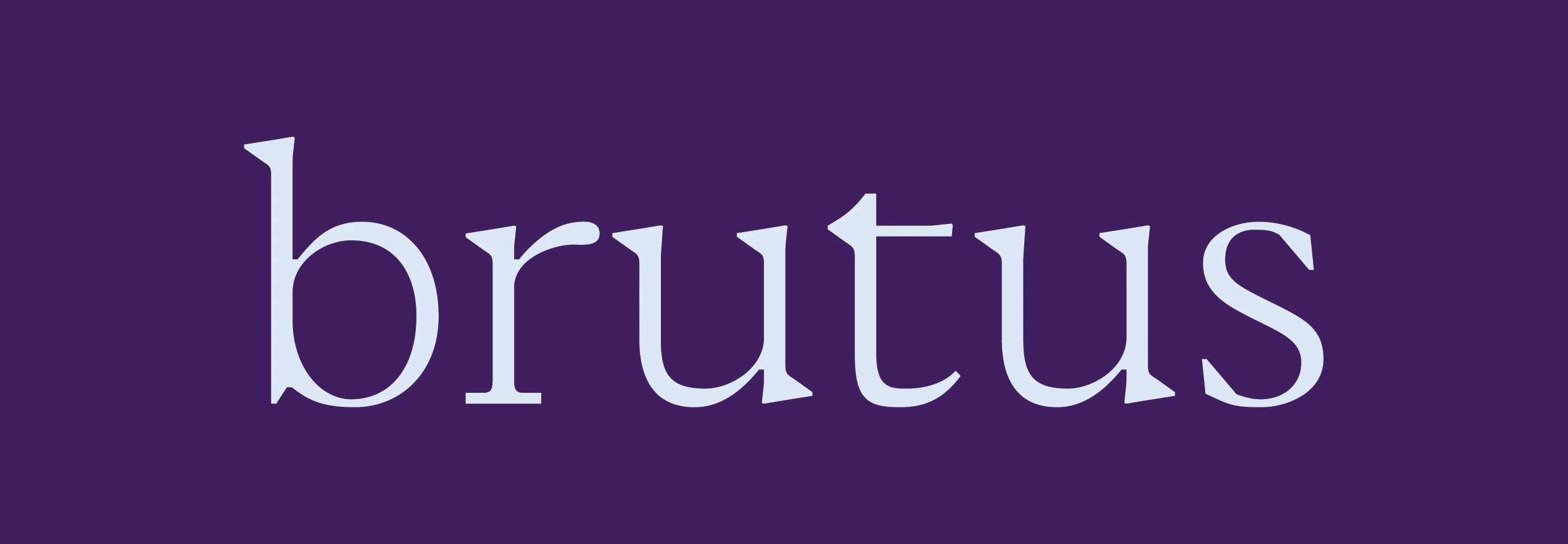
Lately, I’ve been sketching out a versatile new serif family intended for editorial design. I want to balance small aesthetic quirks with real functionality, making sure it stays readable while carrying plenty of personality across Cyrillic, Greek, and Extended Latin.
I started working on Greek letters. As the goal is to make family that will work in modern conditions, I decided to work on monotonic, simplified form of Greek alphabet.
– Basic Latin character map completed;
– Cyrillic characters added;
– Greek characters completed;
– Weights go now from Light to Black.
– To complete all characters;
– To work on Italics;
– To work on OpenType Features;